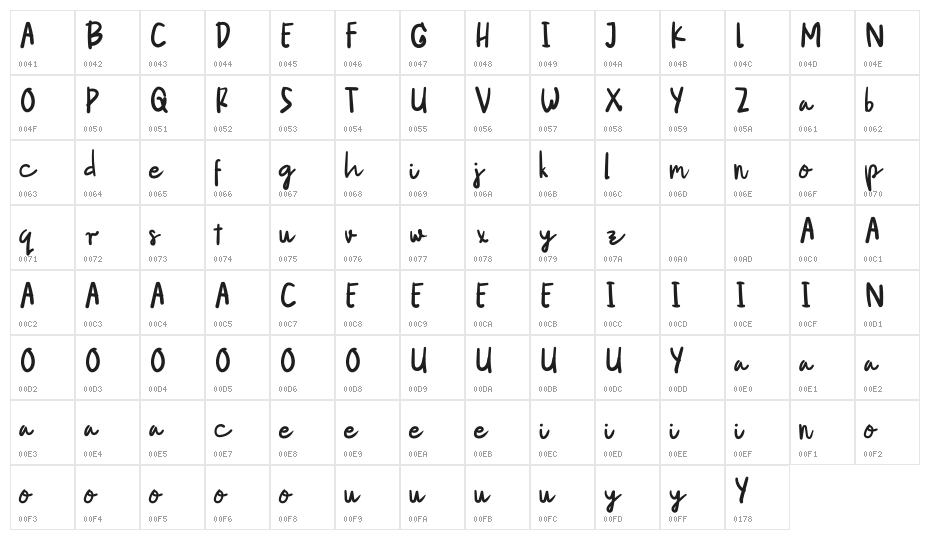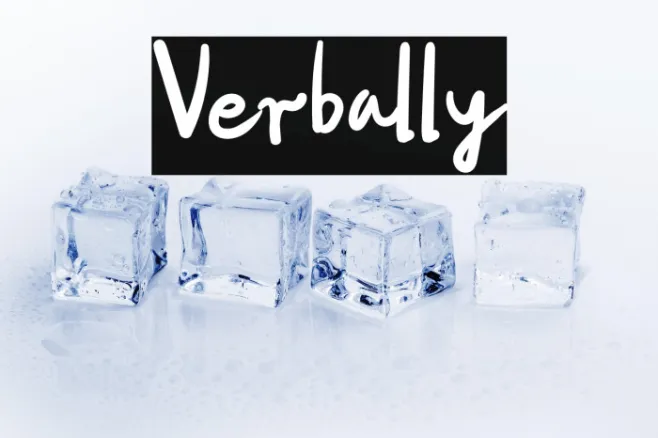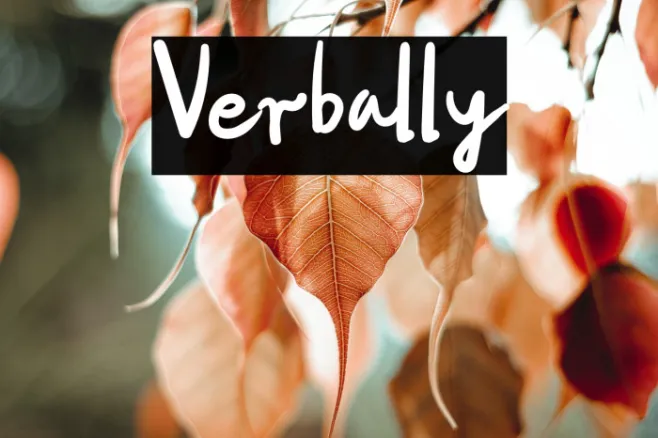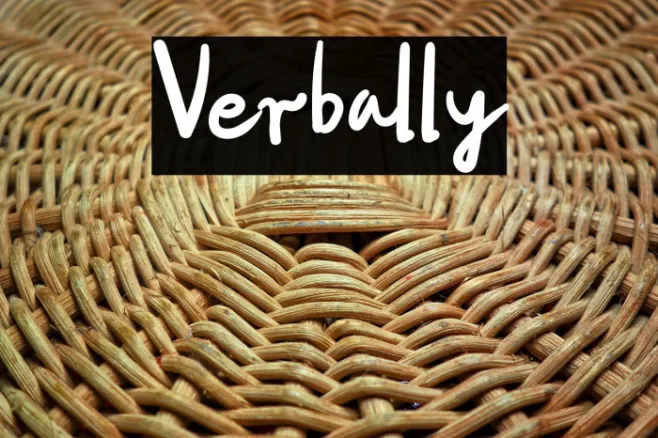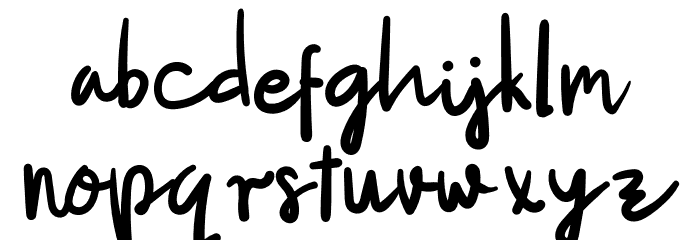
Verbally Font
Verbally Description
This handwritten font exudes a casual and playful vibe, characterized by its smooth, flowing lines and slightly irregular shapes. The uppercase letters are bold and rounded, giving a sense of approachability and friendliness. The lowercase letters maintain a consistent style, with some letters featuring unique loops and curves that add personality. The overall appearance is informal yet legible, making it suitable for creative and personal projects. The font's design is reminiscent of natural handwriting, offering a personal touch that can enhance the visual appeal of various designs.
| Proposed Projects | Ideal for greeting cards, invitations, personal branding, and creative projects that require a friendly and approachable look. |